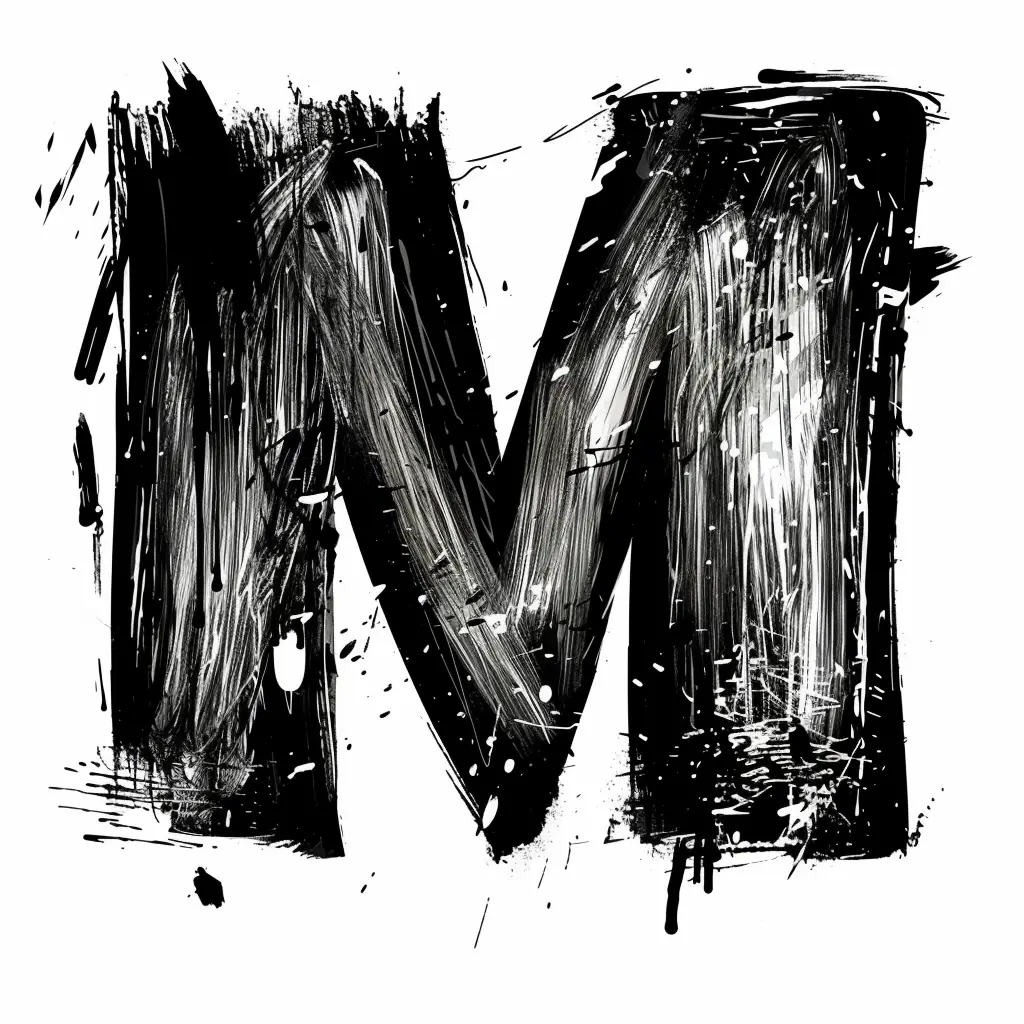
The image features a bold, stylized letter "M" rendered in a rough, brushstroke-inspired artistic style. The letter is predominantly black with textured, streaky white highlights, set against a clean white background, and includes splatters, drips, and uneven edges that enhance its dynamic, hand-painted aesthetic.